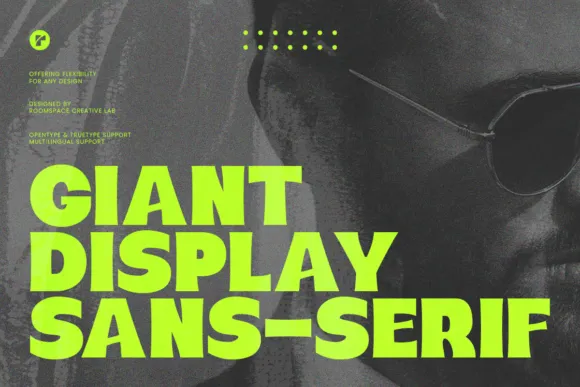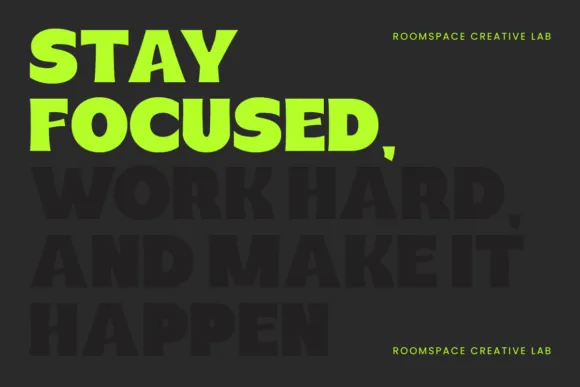
Giant Display Serif Font
Giant Display Serif Font a strong sans serif show typeface intended to offer an intense expression.
With solid lines and a decisive style, this text style is made to hang out in any venture, from marking and banners to bundling and computerized media.
Giant Display Serif Font novel, effective plan draws consideration and oozes certainty, making it ideal for titles, logos, and any showcase centered plans.